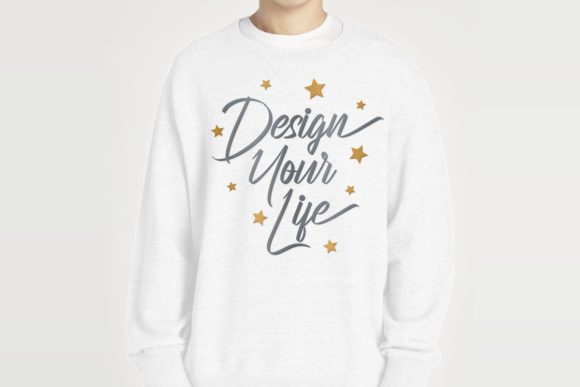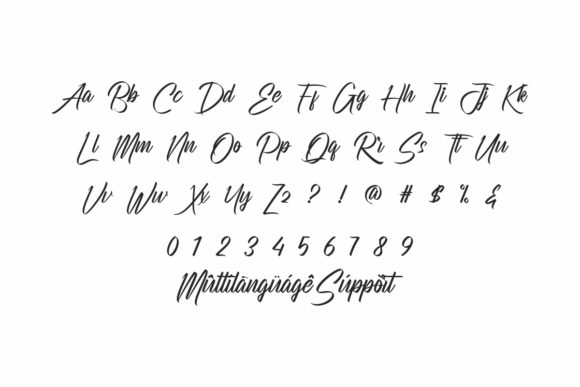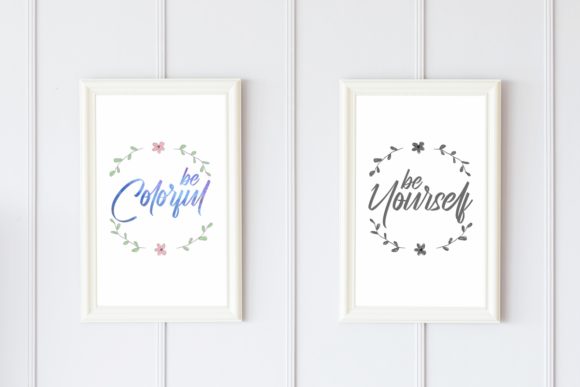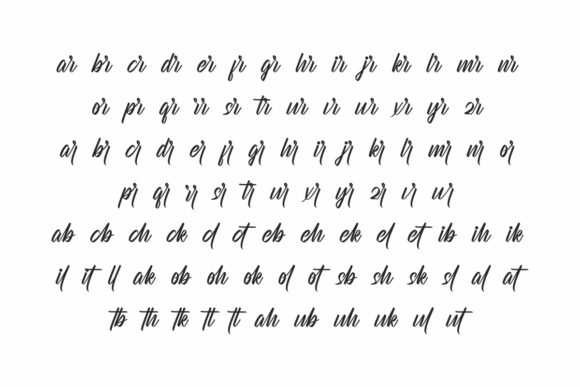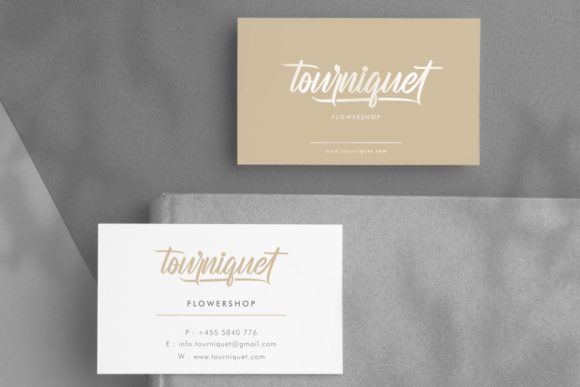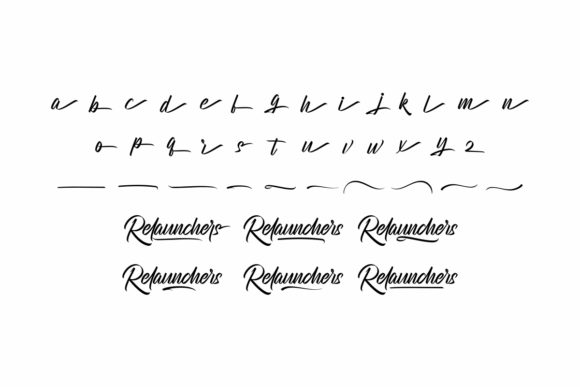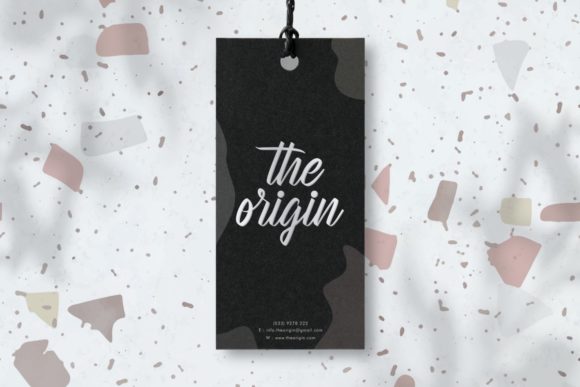
Relaunchers Font
About Relaunchers Font
Introducing “Relaunchers,” a sweet and cursive brushed handwritten font that will bring a touch of elegance and romance to your design projects. With its gentle strokes and charming curves, Relaunchers is the perfect choice for adding a joyful and romantic touch to any creative endeavor.
This font exudes a sense of warmth and playfulness, making it suitable for a wide variety of design ideas. Whether you’re creating greeting cards, wedding invitations, quotes, logos, or any other project that requires a personalized and expressive touch, Relaunchers will elevate your designs to new heights.
The cursive nature of Relaunchers adds a sense of fluidity and grace to each letter. The brush-like strokes create a natural and organic look, giving the font a handcrafted feel that is both inviting and delightful. Each character is carefully crafted to maintain a harmonious flow, allowing them to blend seamlessly with one another.
With its versatility and charm, Relaunchers can be used across different mediums and platforms. Whether you’re working on print materials, digital designs, or social media graphics, this font will bring a touch of sweetness and character to your creations. Its legibility ensures that your message is conveyed clearly, while its distinctive style adds a unique and memorable element to your designs.
The gentle and cursive nature of Relaunchers makes it particularly well-suited for projects that evoke emotions, such as wedding invitations, love letters, or heartfelt quotes. The romantic touch of this font will captivate and engage your audience, leaving a lasting impression.
Whether you’re a professional designer or a creative enthusiast, Relaunchers provides an accessible and charming option for adding a handwritten feel to your projects. Its brush-like appearance gives your designs a sense of authenticity and personality, allowing you to connect with your audience on a deeper level.
Bring your creative ideas to life with the sweet and cursive charm of Relaunchers. Let this font infuse your designs with joy, romance, and a touch of elegance. Whether you’re aiming for a whimsical and playful look or a more refined and sophisticated style, Relaunchers will be your perfect companion.
Unlock the full potential of your design projects with Relaunchers. Let its sweet and cursive brushed handwriting font elevate your work, adding a delightful and romantic touch. Create designs that stand out and evoke emotions with the help of this charming and versatile font.